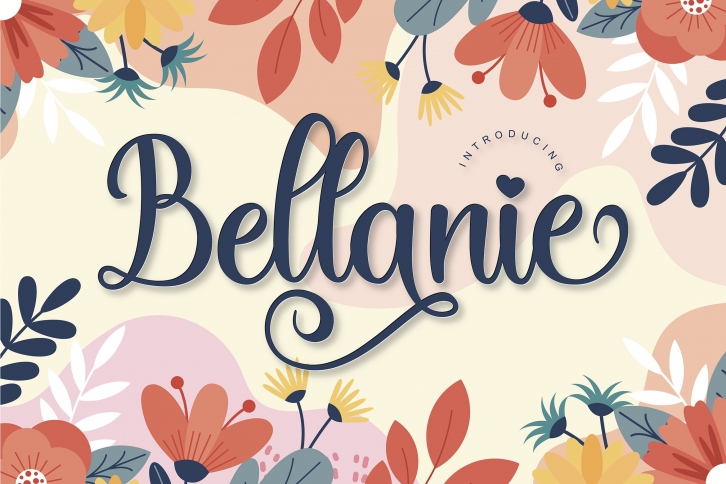
Bellanie is a gorgeous font that was realeased on August 4, 2020. The font can be used in many style contexts and design environments. Perfect for invitations, magazines, websites, logos, and more! It was designed by ToniStudio and the file size is 3.10 MB. Thanks for checking out this font!